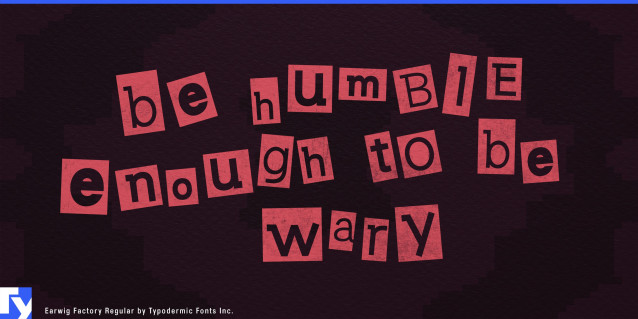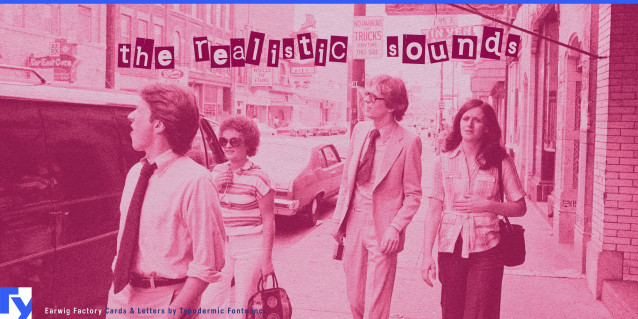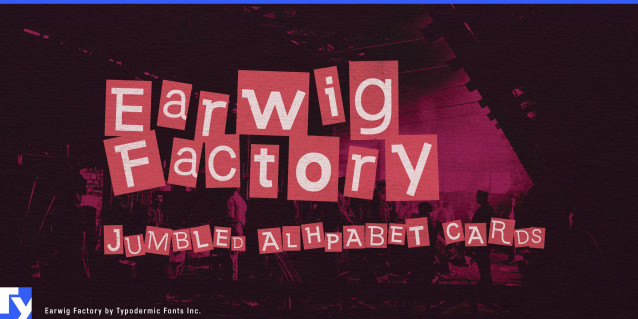
Very Earwig Factory Font
Very Earwig Factory Font is another scattering of jumbled cut-outs. For a more realistic feel, letters and numerals in OpenType-savvy programs are pseudorandomized. Color/texture layers can be created using the “letters” and “cards” styles. An additional “cards” layer can be offset to create a drop shadow effect. Most Latin-based European writing systems are supported, including the following languages.